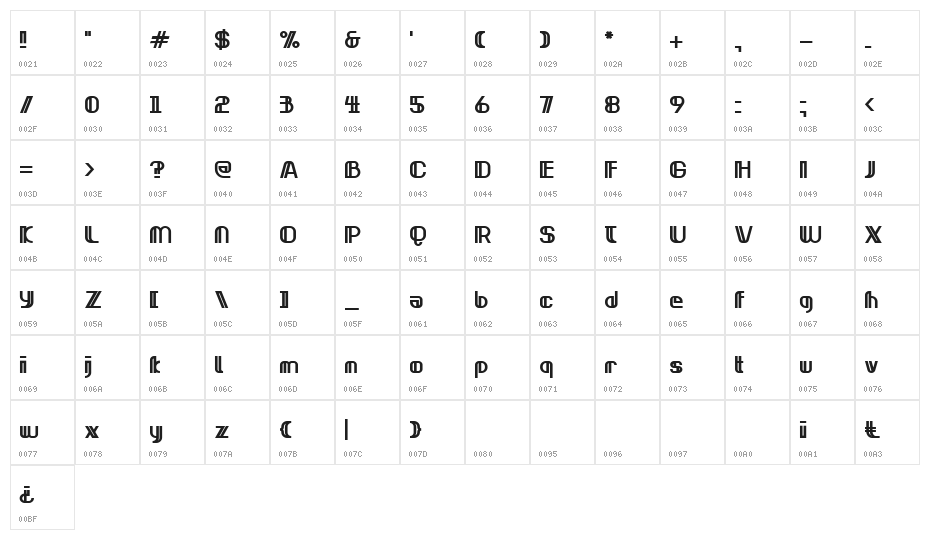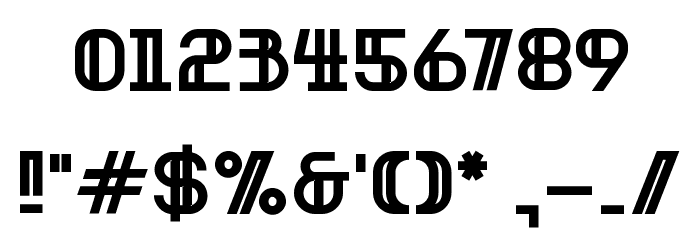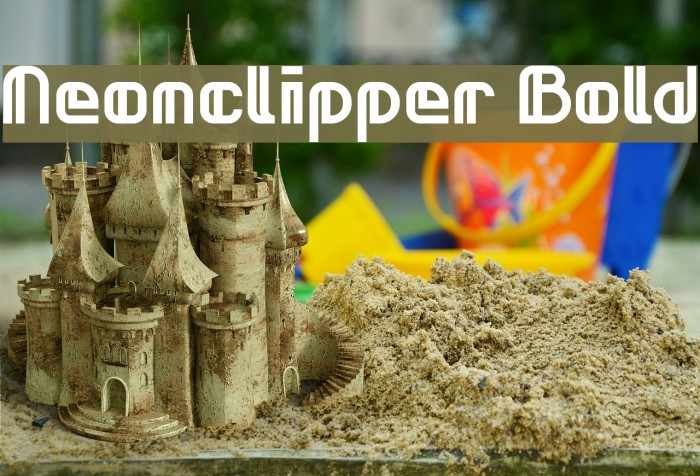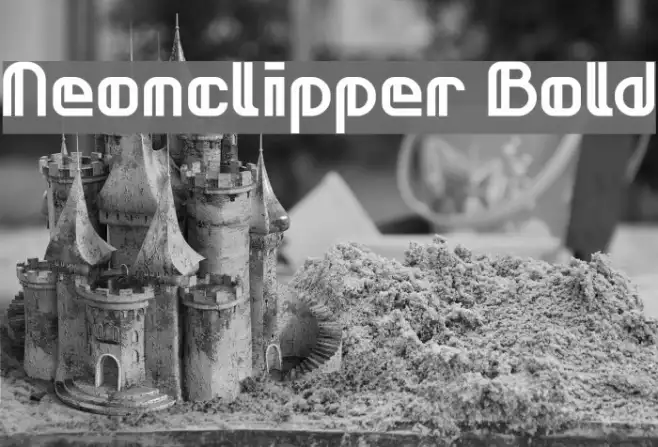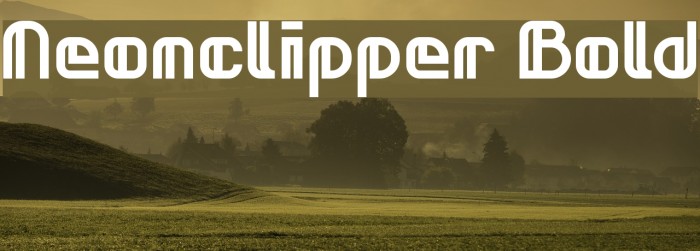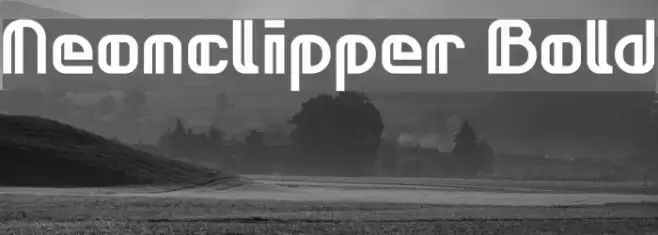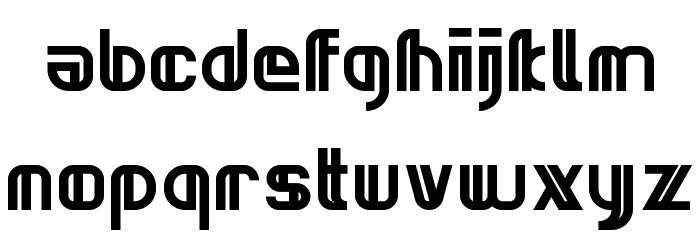
Neonclipper Bold Font
Neonclipper Bold Description
This font features a bold and modern design with a distinctive geometric style. The characters are constructed with clean, straight lines and sharp angles, giving it a futuristic and tech-inspired appearance. The uppercase and lowercase letters maintain a consistent height, while the numerals are designed to complement the overall aesthetic. Special characters are crafted with the same attention to detail, ensuring uniformity across the font. The design is both eye-catching and versatile, making it suitable for a variety of creative applications.